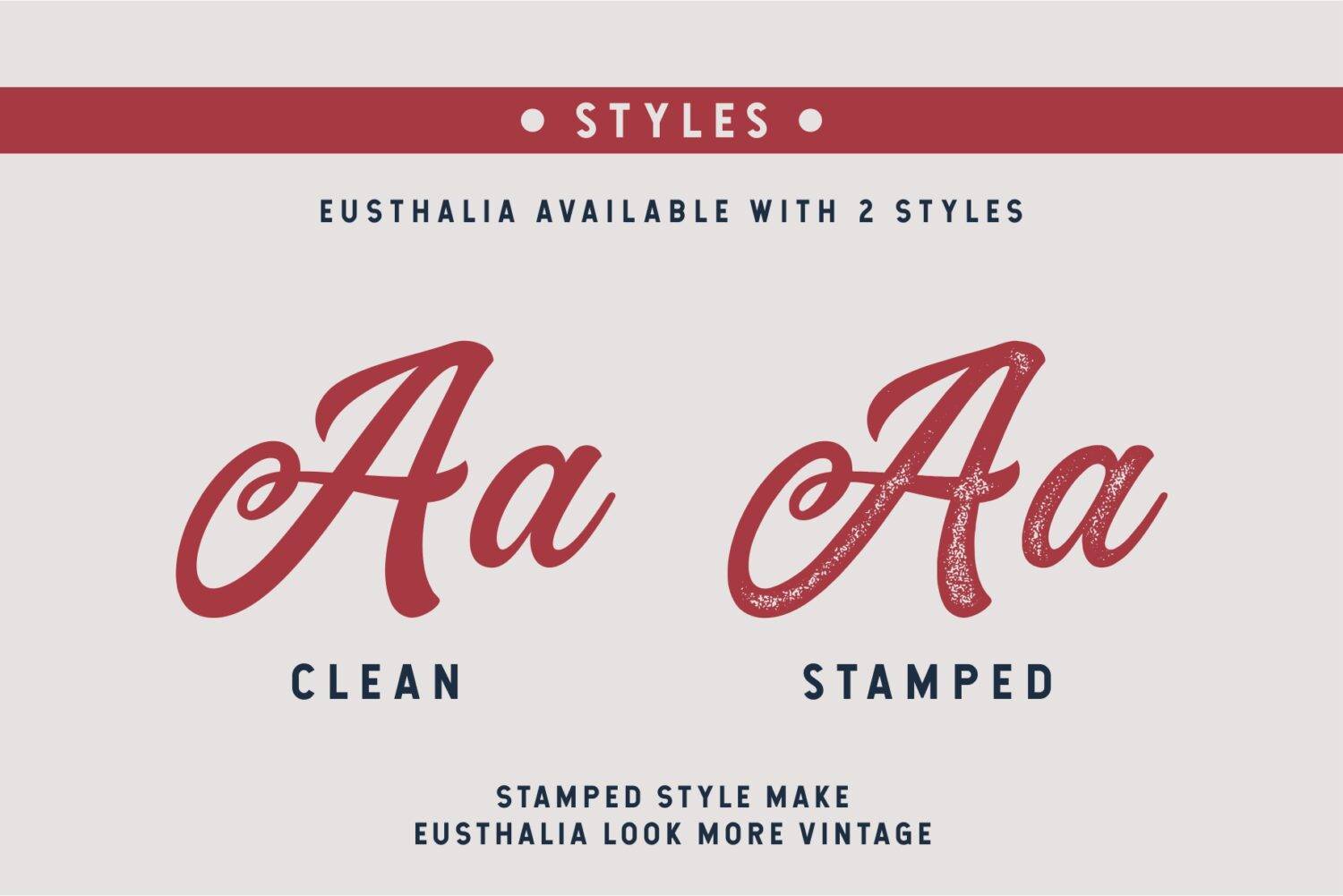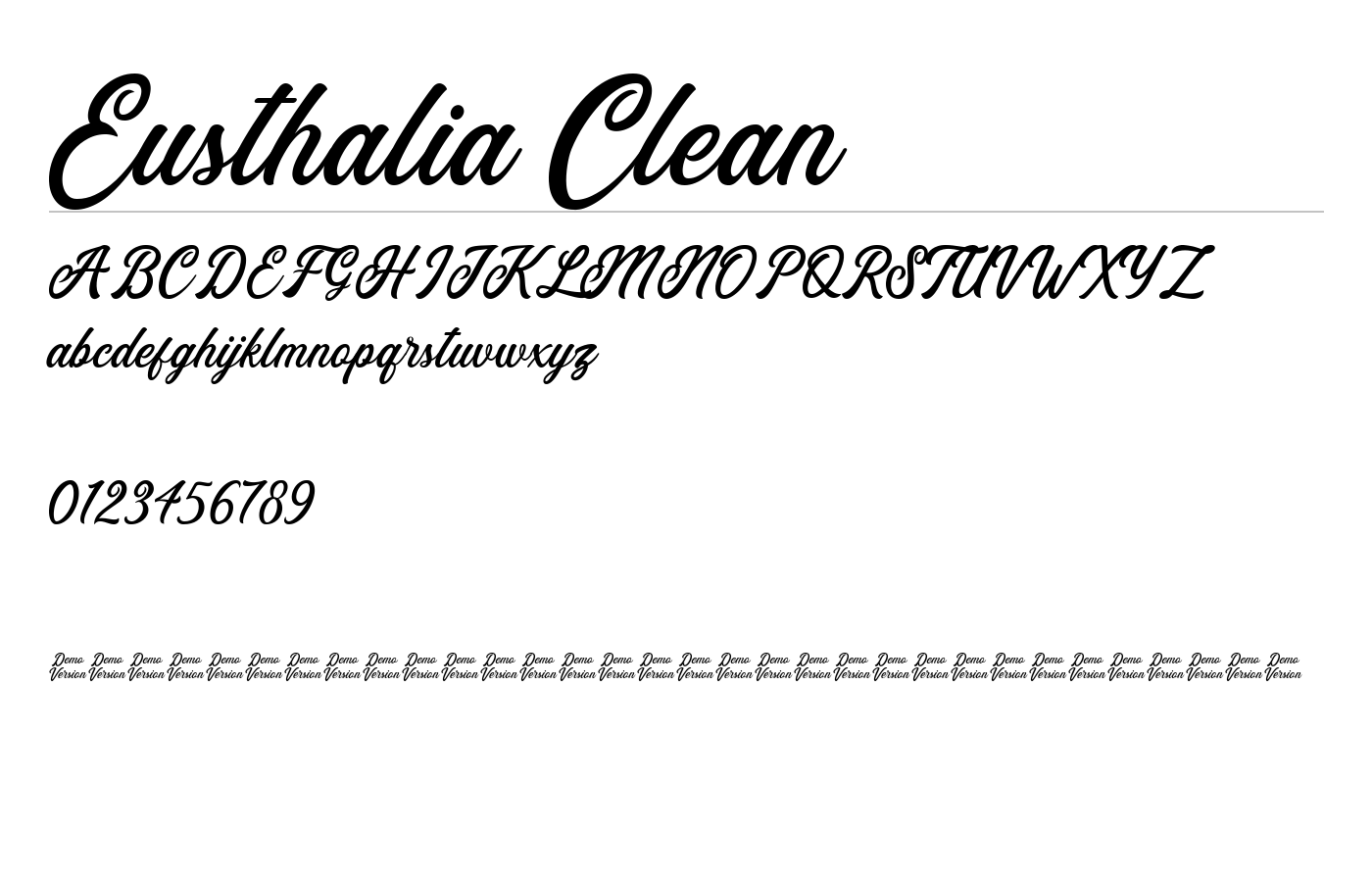
Eusthlia is an elegant script font with smooth, flowing strokes and a moderate contrast that gives it a refined yet approachable feel. Its clean, cursive letterforms with both uppercase and lowercase support make it ideal for stylish branding, invitations, and headlines where a touch of sophistication is desired. This font works well for fashion, beauty, and luxury projects that want to convey grace and charm.
Eusthlia Font
About Eusthlia Font